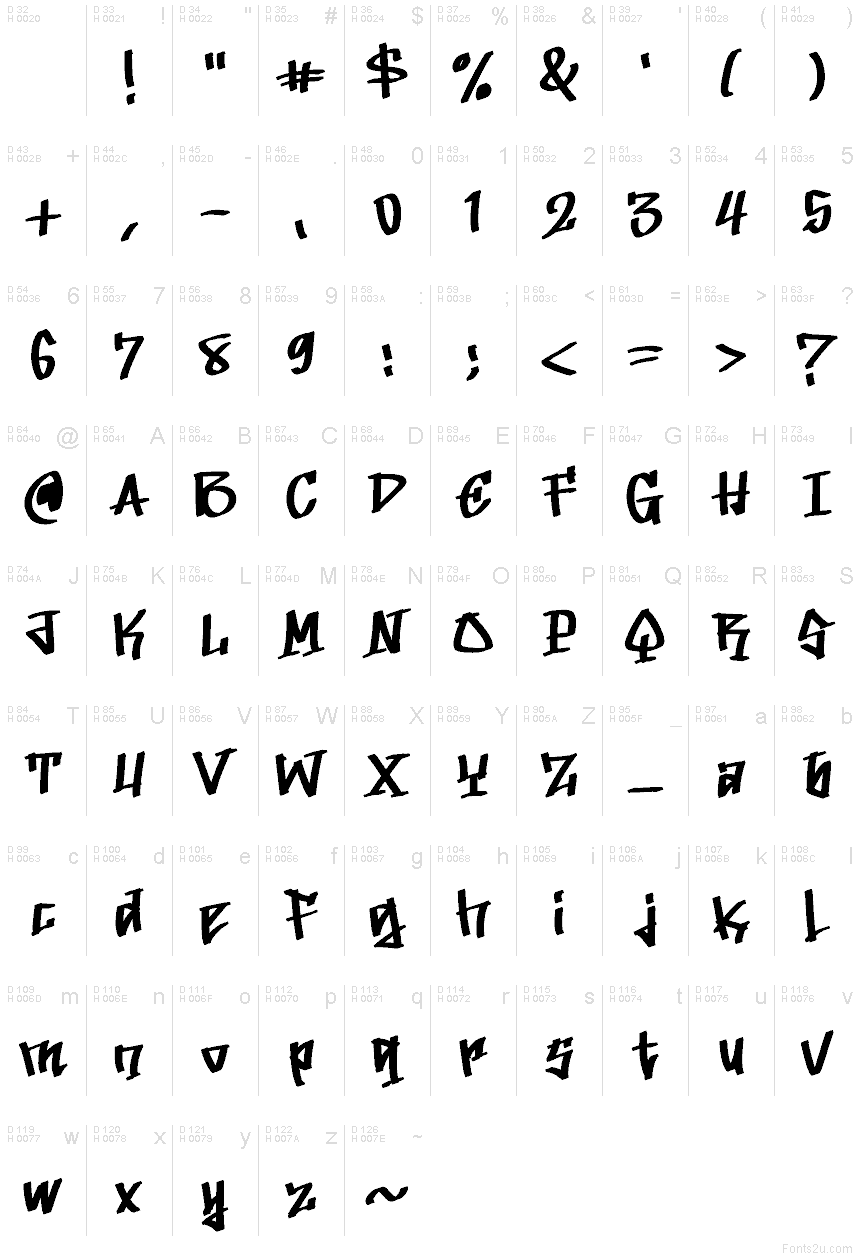
Rada Miying font by selawetype is a free graffiti typeface. Its slashed brush strokes and off-kilter rhythm feel freshly tagged-angular, inky, and a little unruly-so headlines pop with real street grit instead of polished polish. The letters lean and jab like quick marker hits, with chunky wedges and sudden spikes that keep the texture lively and loud.
Using Rada Miying, you’ll get instant attitude for posters, album art, streetwear logos, stickers, event flyers, and video titles. This free font shines on bold, short words and punchy phrases; let it breathe big and let the edges shout. Pair it with a clean condensed sans for body copy to keep the message sharp and readable.